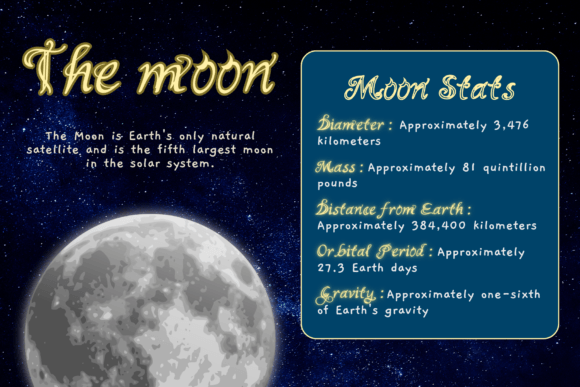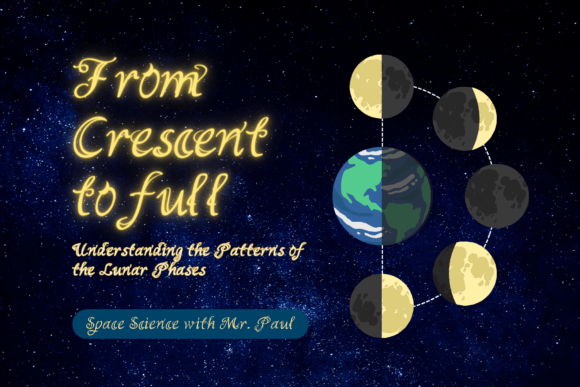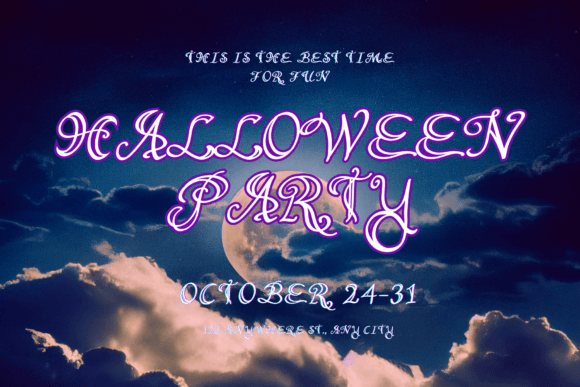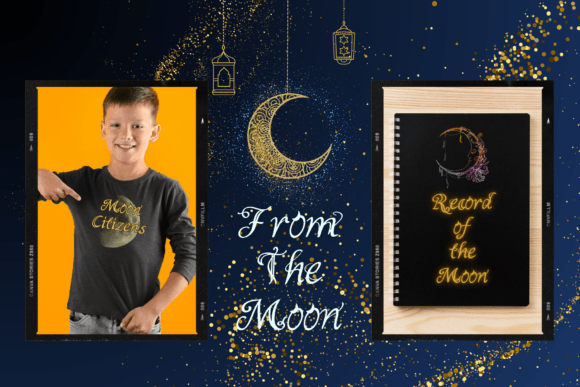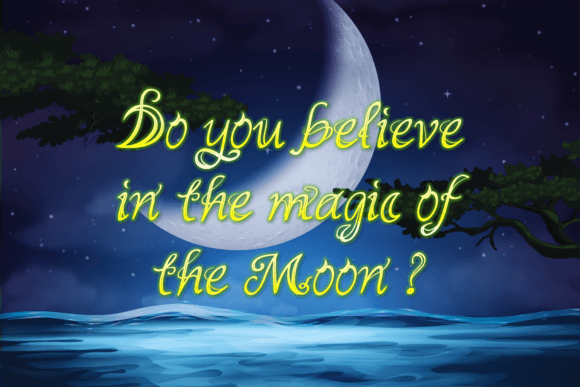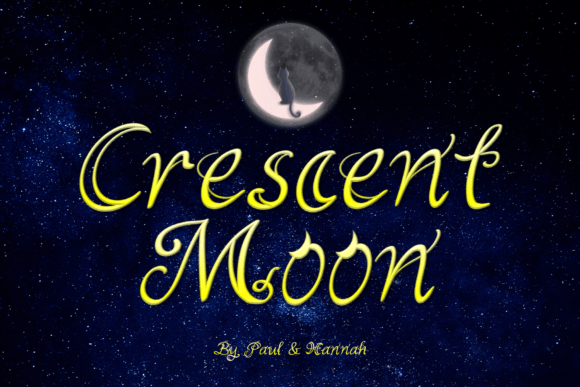
Crescent Moon Font: A Magical Typeface Inspired by the Lunar Cycle
The crescent moon, a symbol of mystery, magic, and wonder, has long been a source of inspiration for artists, designers, and crafters. Its gentle glow and curved shape have captivated human imagination, making it a popular motif in various festivals, celebrations, and creative projects. For designers and crafters looking to add a touch of lunar magic to their work, the Crescent Moon Font is an excellent choice. In this article, we’ll explore the story behind this enchanting font, its design features, and how it can elevate your creative projects.
The Inspiration Behind Crescent Moon Font
The Crescent Moon Font is a creative interpretation of the lunar cycle, specifically the crescent moon phase. The author of this font aimed to capture the essence of the moon’s mystical and dreamy quality, resulting in a typeface that exudes magic and wonder. The crescent moon, often associated with Halloween and other festivals, is a symbol of transformation, growth, and renewal. By drawing inspiration from this celestial body, the font’s designer sought to create a unique and captivating typeface that would add a touch of enchantment to any design or craft project.
Design Features of Crescent Moon Font
The Crescent Moon Font boasts a range of design features that make it an excellent choice for designers and crafters. Some of its notable features include:
• Magical and whimsical design: The font’s design is characterized by its dreamy, magical quality, making it perfect for projects that require a touch of fantasy and wonder.
• Crescent moon motifs: The font features crescent moon shapes and curves, adding a distinctive and recognizable element to your designs.
• Curved and flowing lines: The font’s curved and flowing lines create a sense of movement and fluidity, making it ideal for projects that require a sense of dynamism and energy.
• Highly legible: Despite its whimsical design, the Crescent Moon Font is highly legible, making it suitable for use in a variety of applications, from titles and headings to body text.
Uses of Crescent Moon Font
The Crescent Moon Font is a versatile typeface that can be used in a wide range of creative projects, including:
• Halloween and autumn-themed designs: The font’s association with the crescent moon makes it a natural fit for Halloween and autumn-themed designs, such as invitations, party decorations, and social media graphics.
• Fantasy and magical designs: The font’s magical and whimsical design makes it perfect for fantasy and magical-themed designs, such as book covers, posters, and character designs.
• Crafting and DIY projects: The font’s unique and creative design makes it an excellent choice for crafting and DIY projects, such as handmade cards, gift tags, and scrapbooking.
Tips for Using Crescent Moon Font
To get the most out of the Crescent Moon Font, here are some tips to keep in mind:
• Use it sparingly: While the font is beautiful and eye-catching, it’s best to use it sparingly to avoid overwhelming your design. Use it for headings, titles, or key phrases to add a touch of magic and wonder.
• Pair it with complementary fonts: Pair the Crescent Moon Font with complementary fonts to create visual interest and contrast. A simple sans-serif font or a script font can provide a nice contrast to the font’s whimsical design.
• Experiment with colors and textures: The Crescent Moon Font looks stunning in a range of colors and textures. Experiment with different colors, gradients, and textures to add depth and visual interest to your design.
Font Name Crescent Moon Font
The Crescent Moon Font is a unique and captivating typeface that adds a touch of magic and wonder to any design or craft project. Its design features, versatility, and whimsical charm make it an excellent choice for designers and crafters looking to create enchanting and memorable projects. Whether you’re working on a Halloween-themed design, a fantasy-inspired project, or a crafting and DIY project, the Crescent Moon Font is sure to inspire and delight.